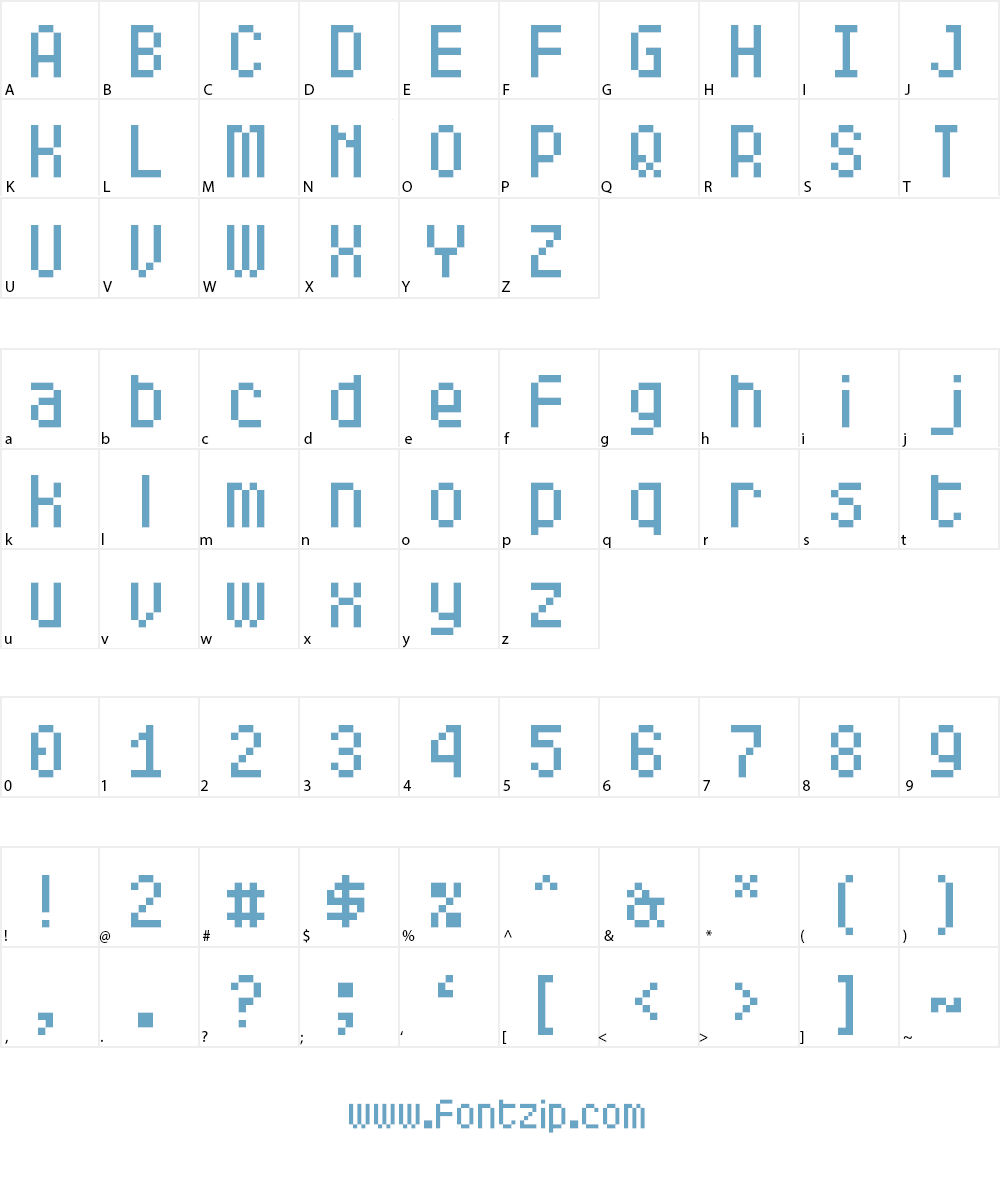
Original size: 6pt (use multiples of this size for pixel perfection)
Supports Dutch, English, and Greek!
This is a slightly quirky font made to be good for chat and marquee display. It works well for IRC clients, MUD clients, and so on.